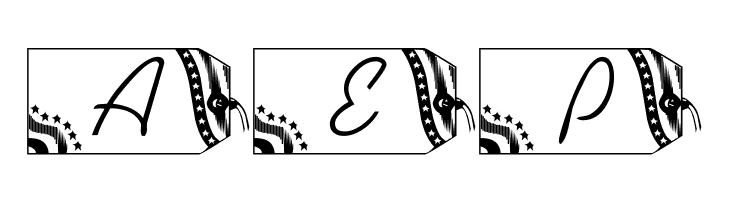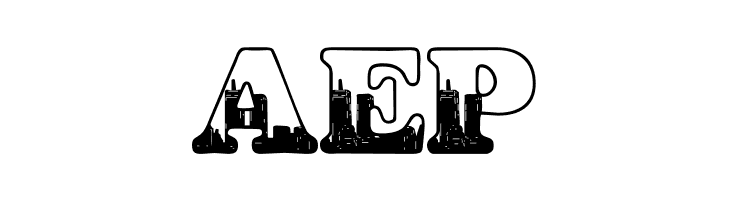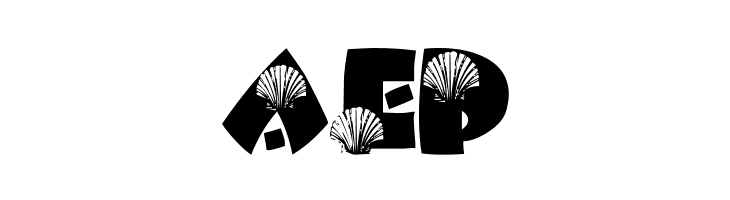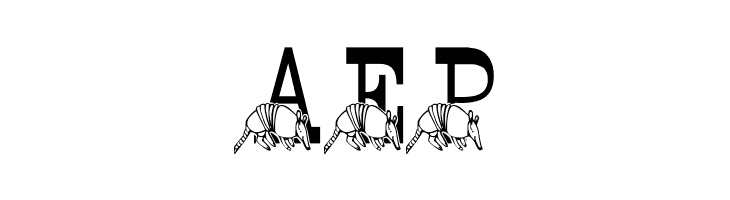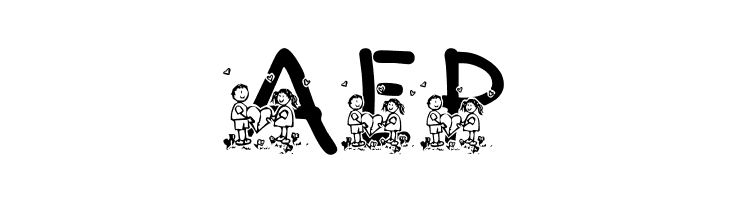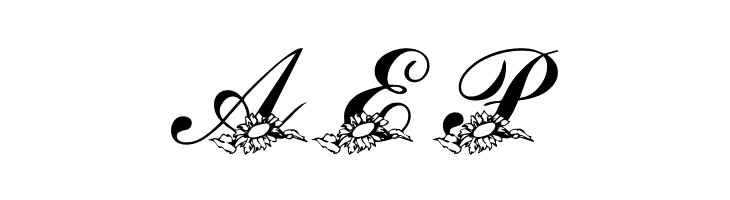
An elegant script font with ornate flourishes and decorative elements.
A bold, decorative font with cityscape silhouettes in each character.
A decorative font with seashell motifs integrated into bold, blocky letters.
A bold, decorative font with skier silhouettes integrated into each character.
A whimsical, turtle-themed decorative font with bold, intricate designs.
A decorative font with intricate star and swirl patterns inside bold, outlined characters.
A bold, decorative font with stars and stripes, inspired by the American flag.
A bold, decorative font with integrated armadillo motifs for a playful touch.
A playful, decorative font with whimsical, hand-drawn elements.
A decorative script font with sunflower embellishments, perfect for elegant designs.